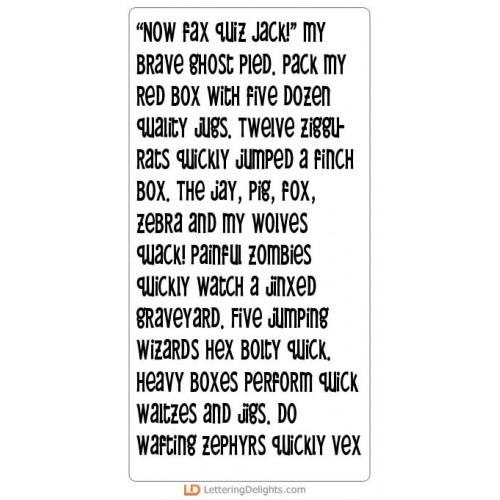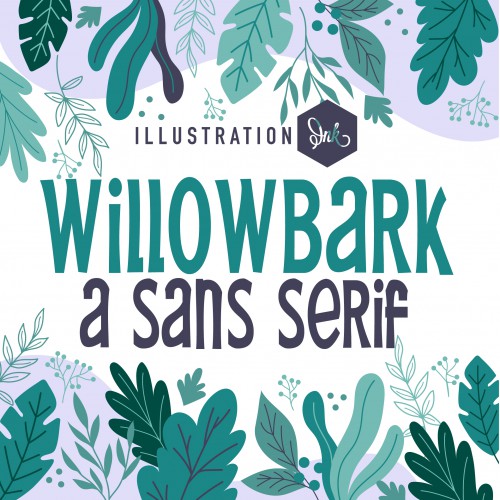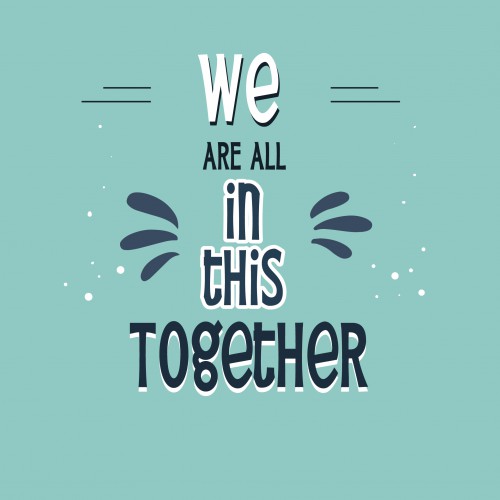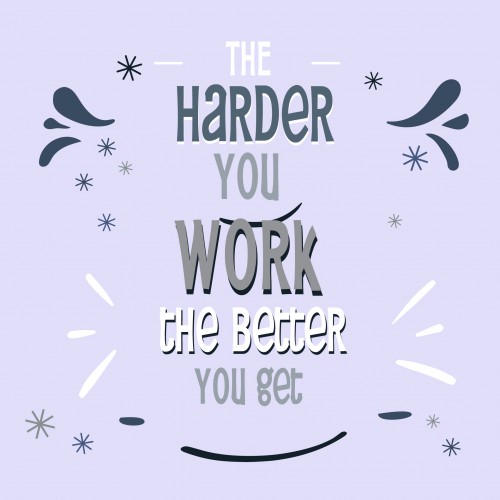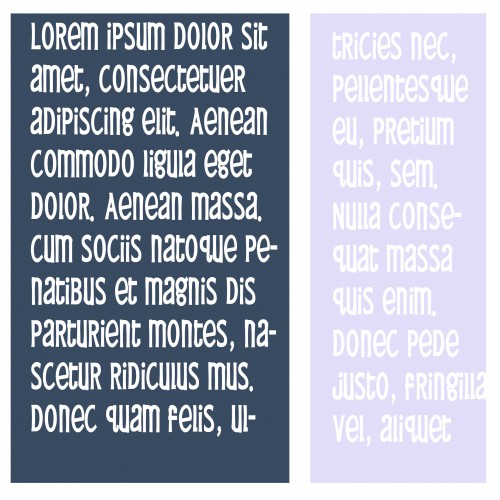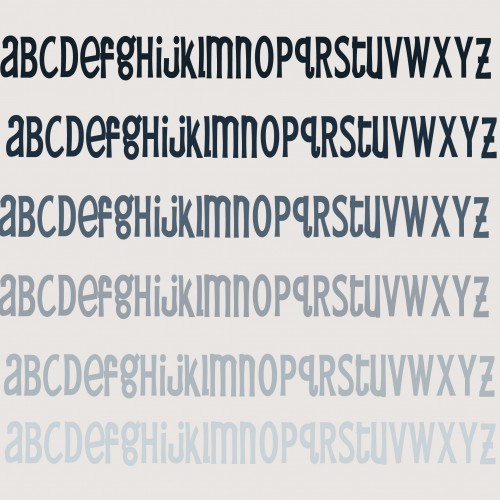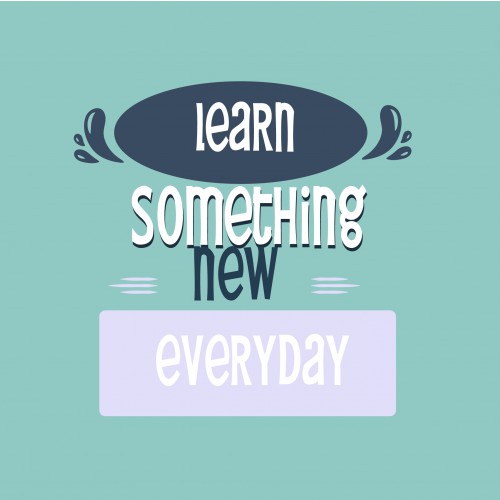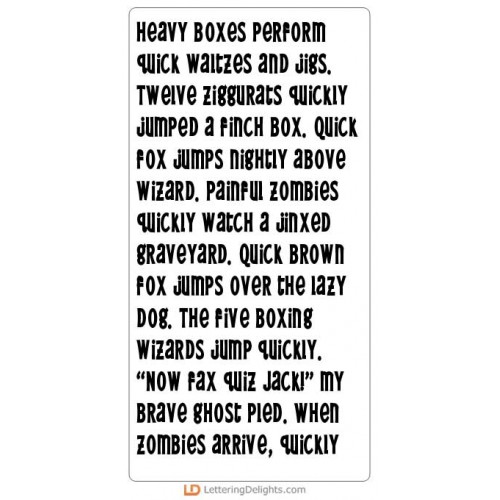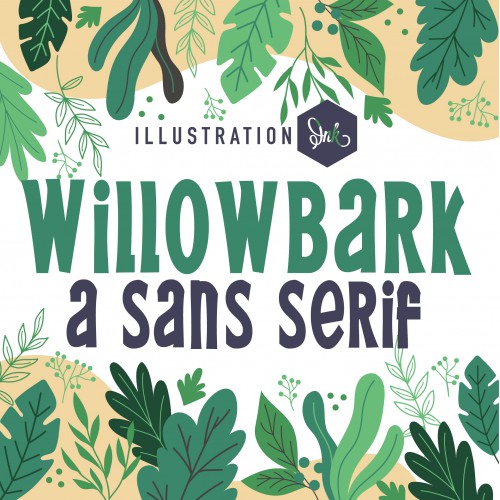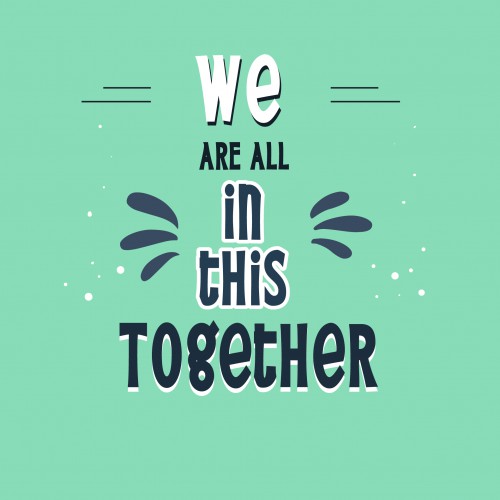
PN Willowbark - FN
This sans seif font has a crafty feel with no descenders in the lowercase..
PN Willowbark Bold - FN
This sans seif font has a crafty feel with no descenders in the lowercase..